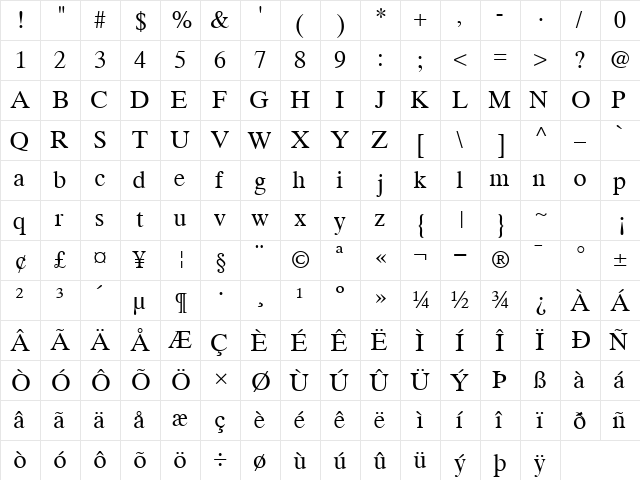
GrecoTenSSK Regular Font Preview
GrecoTenSSK Regular
Design Context for GrecoTenSSK Typeface
GrecoTenSSK offers clean, dependable letterforms without strong stylistic allegiance, making it a practical choice for designers who need flexibility.